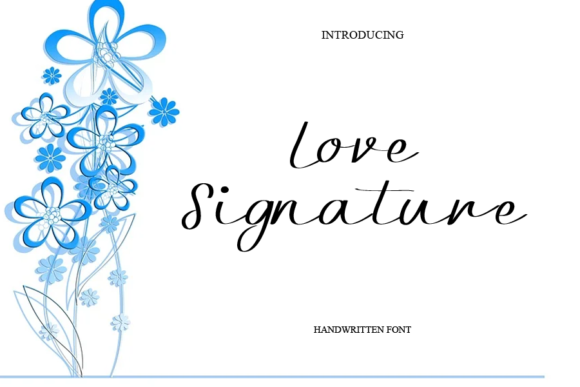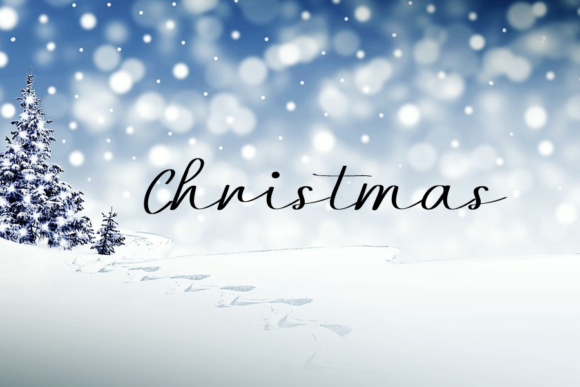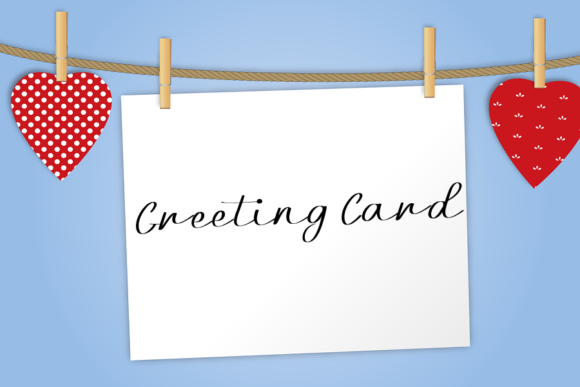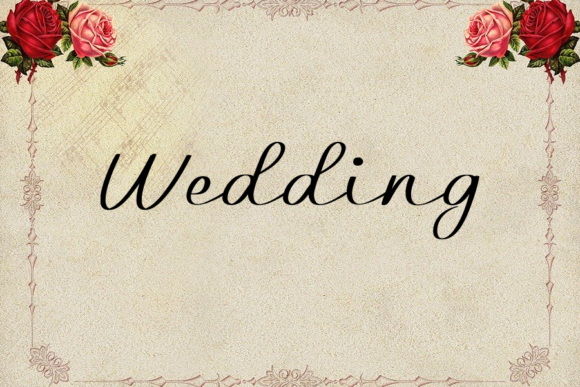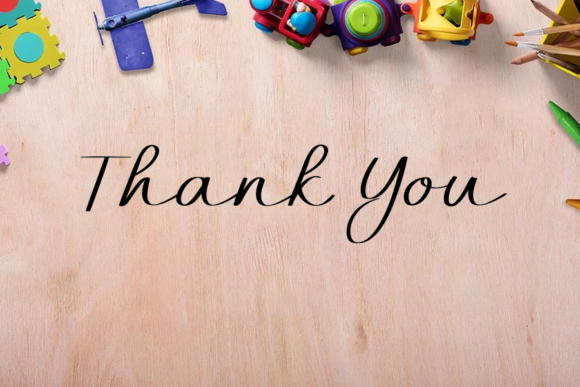
Love Signature Font
About Love Signature Font
Love Signature is a lovely and delicate script font that brings an essence of elegance and class to your designs. With its intricate and graceful letterforms, this font is perfect for adding a touch of beauty and sophistication to various design projects. Whether you’re working on invitations, branding, stationery, or any other creative endeavor, Love Signature font will give your designs a beautiful and refreshing look.
The delicate and refined nature of Love Signature font makes it a perfect choice for those seeking a sophisticated and elegant appearance. Its carefully crafted letterforms and flowing curves create a visually pleasing aesthetic that exudes beauty and grace. By incorporating Love Signature into your designs, you can achieve a stunning and refined look.
Love Signature font is particularly crafted to cater to those who desire a beautiful and refreshing look for their designs. Its unique and intricate style sets it apart, allowing you to create designs that stand out with a touch of elegance and class. Whether used for wedding invitations, logos, or any other design project, Love Signature font adds a sense of refinement and beauty.
The versatility of Love Signature font makes it suitable for a wide range of design applications. From luxury branding to feminine and romantic designs, Love Signature font brings an air of elegance and sophistication. Its lovely and delicate script adds a touch of charm to your projects, making them visually captivating and memorable.
Incorporating Love Signature font into your designs allows you to create a harmonious and refreshing visual experience. Its beautiful and refined letterforms elevate the overall aesthetic and bring a sense of elegance to your creations.
In summary, Love Signature is a lovely and delicate script font that exudes elegance and class. Its carefully crafted letterforms and flowing curves create a visually pleasing aesthetic. Embrace the beauty and refreshing look of Love Signature font and incorporate it into your designs to add a touch of sophistication and beauty.